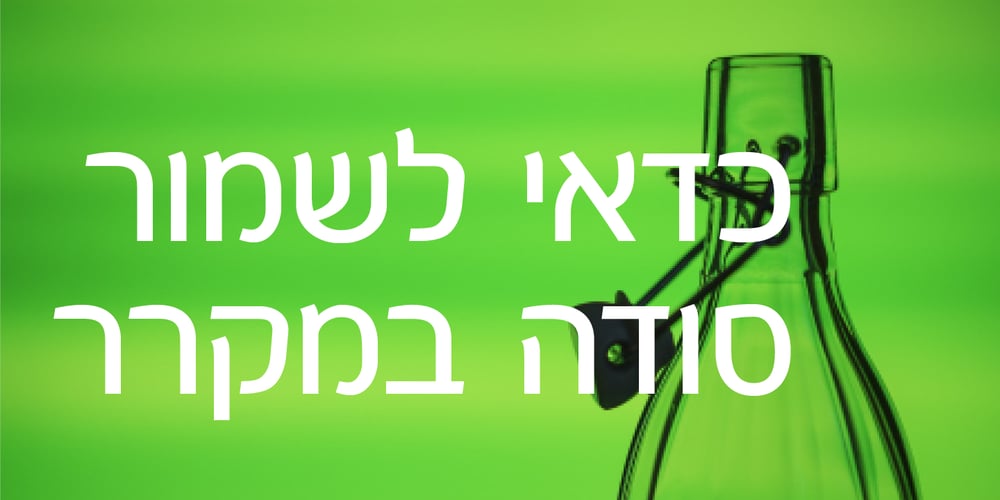
Rosenberg Text MF Font Family was designed by Zvika Rosenberg and published by Masterfont. Rosenberg Text MF contains 3 styles and family package options. Great font family to be used for text as well as billboards and signage – very legible.